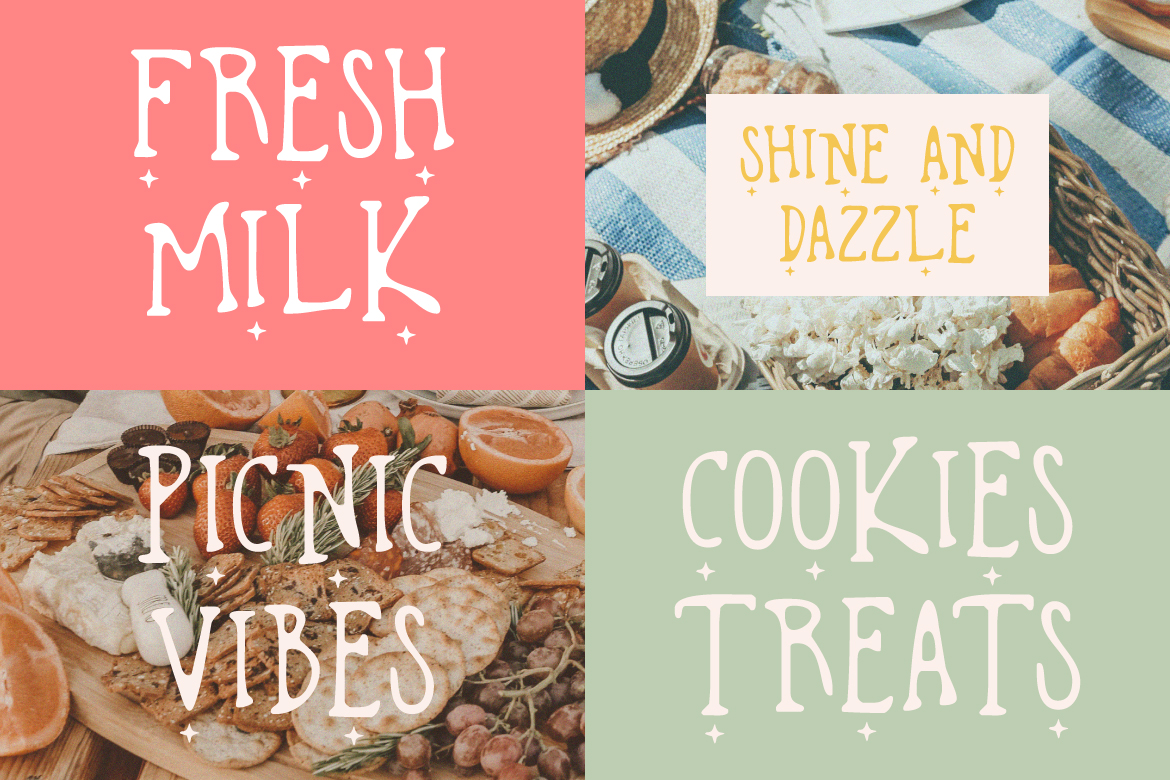
Shine And Grandeur – Playful Font
Introducing Shine And Grandeur. A monoline hand-lettered font with star elements in uppercase, seamlessly harmonizing with lowercase letters. Ideal for branding, logos, and quotes, it adds celestial charm to your designs, elevating them with elegance and allure.